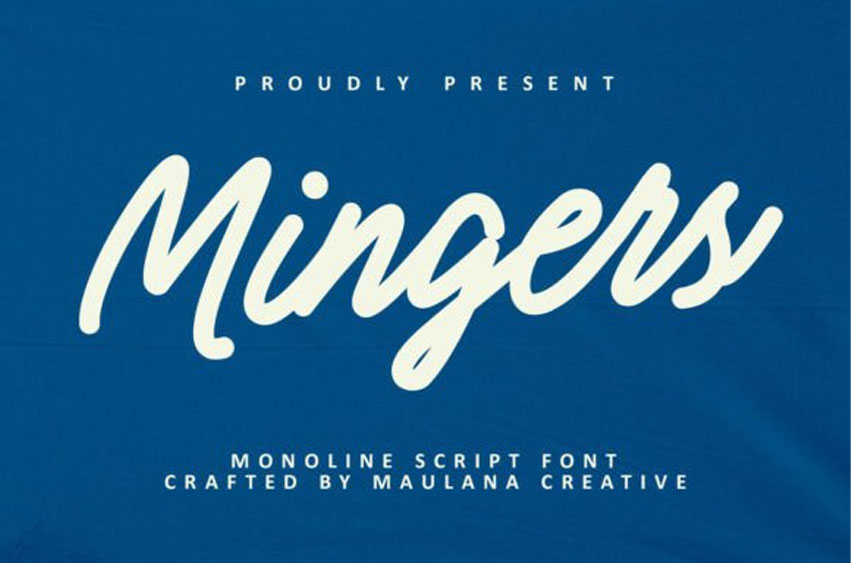
Mingers Font Monoline Script Font is a distinctive retro-inspired typeface that captures the charm of classic monoline lettering with a modern twist. Featuring smooth stroke contrast, playful characters, and a touch of ligatures and alternates, it adds extra flair to your creative projects. Supporting over 100 languages, Mingers offers versatility for global design needs.
Perfect for logos, social media graphics, movie and book titles, or both short and long texts, it also pairs beautifully with serif or sans-serif fonts as a secondary typeface. With Mingers, you can craft stunning, expressive designs that stand out effortlessly.